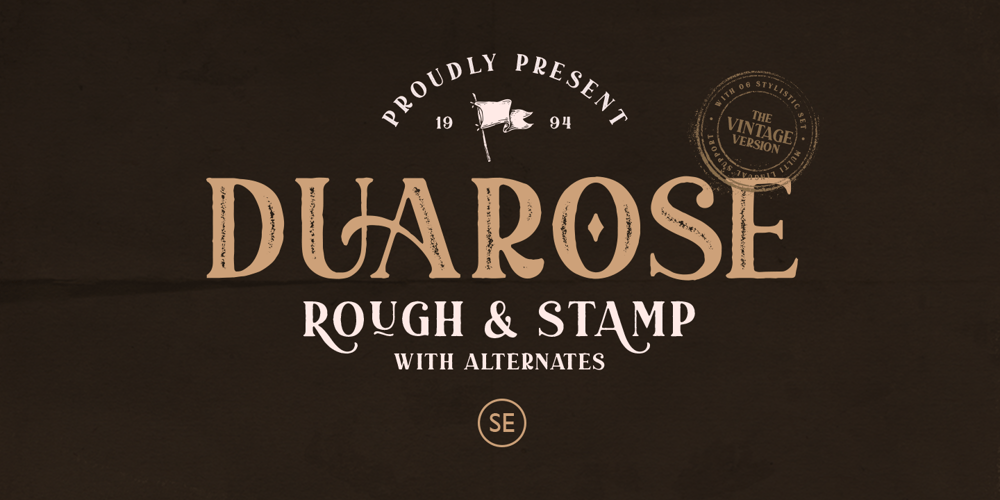
Duarose Font Family was designed by Sarid Ezra and published by Sarid Ezra. Duarose contains 2 styles and family package options. This is the vintage version from my best selling font – Duarose, you can check it from this link – https://crmrkt.com/8dVKREDuarose – Vintage Version is a classic and vintage serif with a bunch of alternates up to 6 style for each characters that will make your presentation or logo even more stunning and stand out! With two style, Rough & Stamp, this font will make your design looks more handmade and vintage. You can use this font for any adventure and outdoor design. Duarose also support Multi Language. and already PUA Encoded!Features Rough & Stamp Style All Uppercase Number & Symbol Multi language Alternates for each characters PUA Encoded